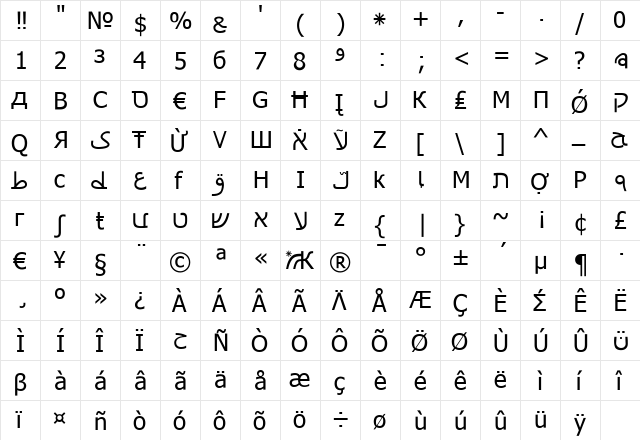
Cyrillatina Regular
Design Context for Cyrillatina Typeface
Cyrillatina is a composed and adaptable typeface that performs quietly and consistently across a wide range of design contexts.